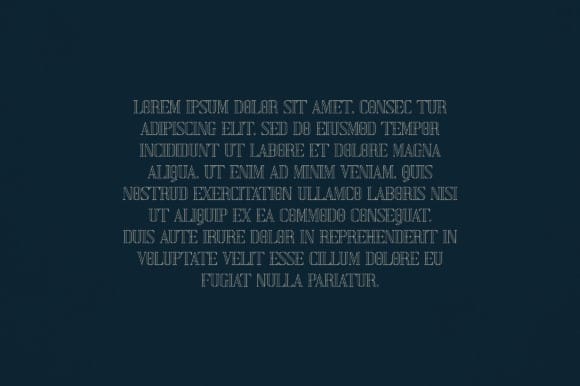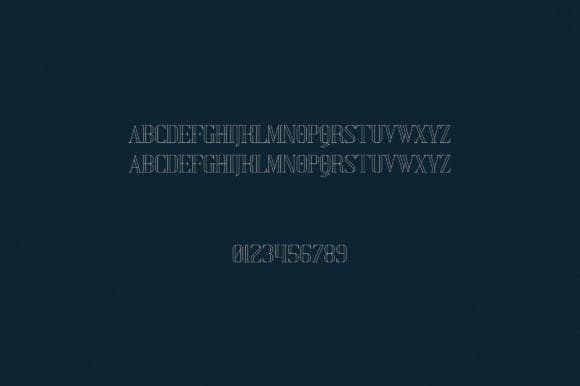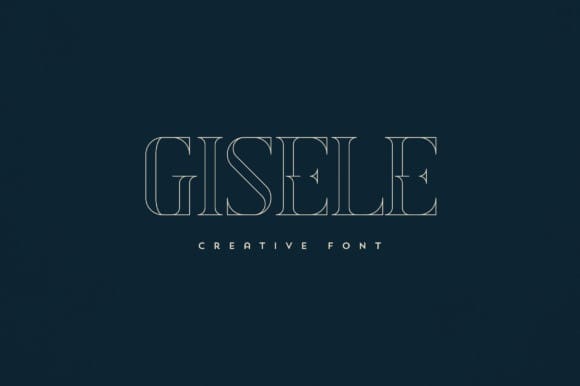
Gisele Font
Gisele Font is an elegant and versatile display font that will make your typography truly unique! It will enchant every logo, branding, headline, or plain text!